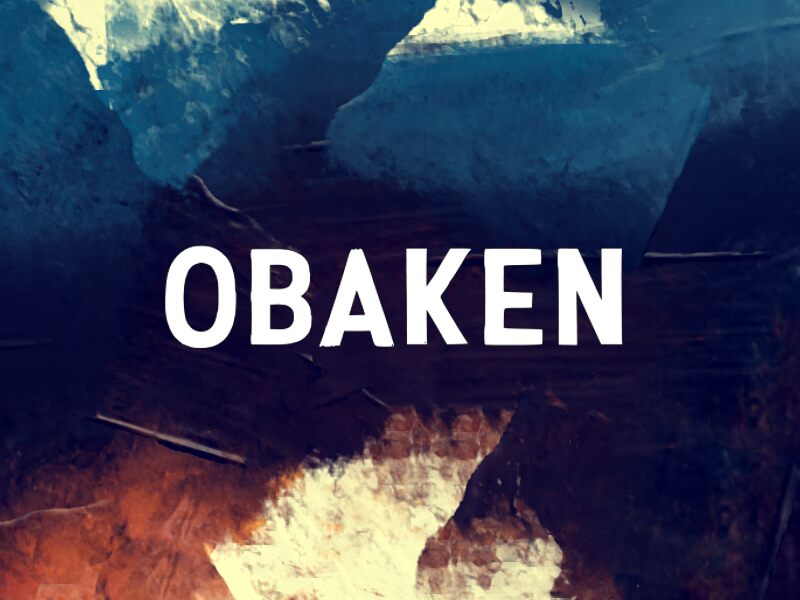
Obaken
Obaken font by wepfont.com is a free spooky decorative typeface with a playful, hand-cut feel. The chunky, slightly wobbled strokes look like they’ve been carved out of black paper, giving each letter a shadowy, ghost-story energy without turning unreadable. Its rounded corners soften the creepiness just enough, making Obaken great when you want eerie atmosphere that still feels fun and approachable.
Using Obaken, you can instantly set the tone for Halloween posters, haunted house flyers, kids’ spooky party invites, seasonal packaging, YouTube thumbnails, or eerie game titles. This free font holds up well at larger sizes, where its rough edges and inky density really show. Pair Obaken with a clean, neutral sans-serif for body text and you’ll get a clear hierarchy that keeps the chills firmly in your headlines.